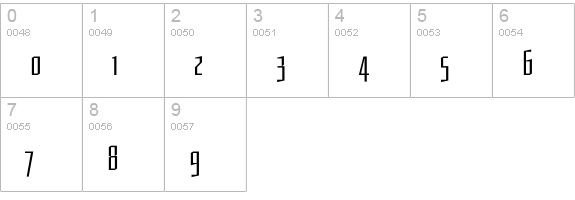
Primary-Book is a comfortable, highly readable variant in the Primary typeface family \xE2\x80\x94 well suited to long-form body text, articles, and editorial content.
Primary-Book font is a modern and versatile typeface that combines elegance with simplicity. Its clean lines and balanced proportions make it perfect for a wide range of design projects. Whether you're working on branding, editorial design, or web design, Primary-Book font will add a touch of sophistication to your work. What's even better is that Primary-Book font is completely free to use! You can download it easily from FontsMarket.com and start incorporating it into your projects right away. With its timeless appeal and effortless versatility, Primary-Book font is sure to become a staple in your font library.